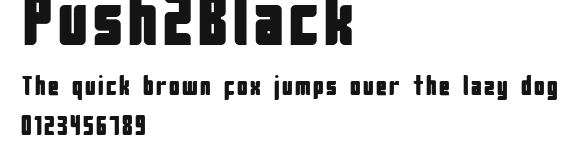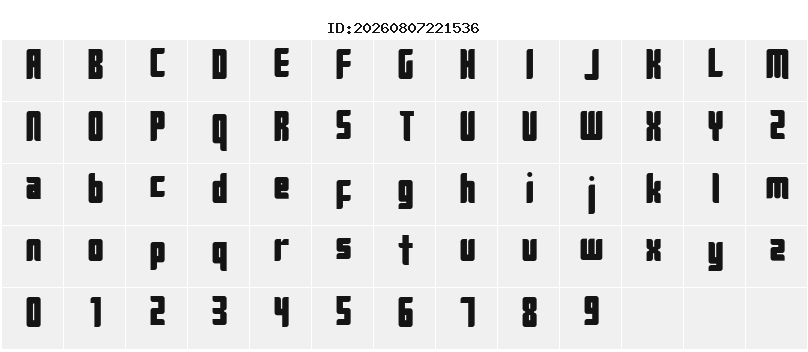
Push2Black Preview
• Font Name: Push2Black
• Full Font Name: Push2Black
About Push2Black.ttf
Push2Black.ttf is a modern, elegant sans-serif font designed for ultimate readability and visual harmony. Perfect for branding, headlines, web design, and print materials.